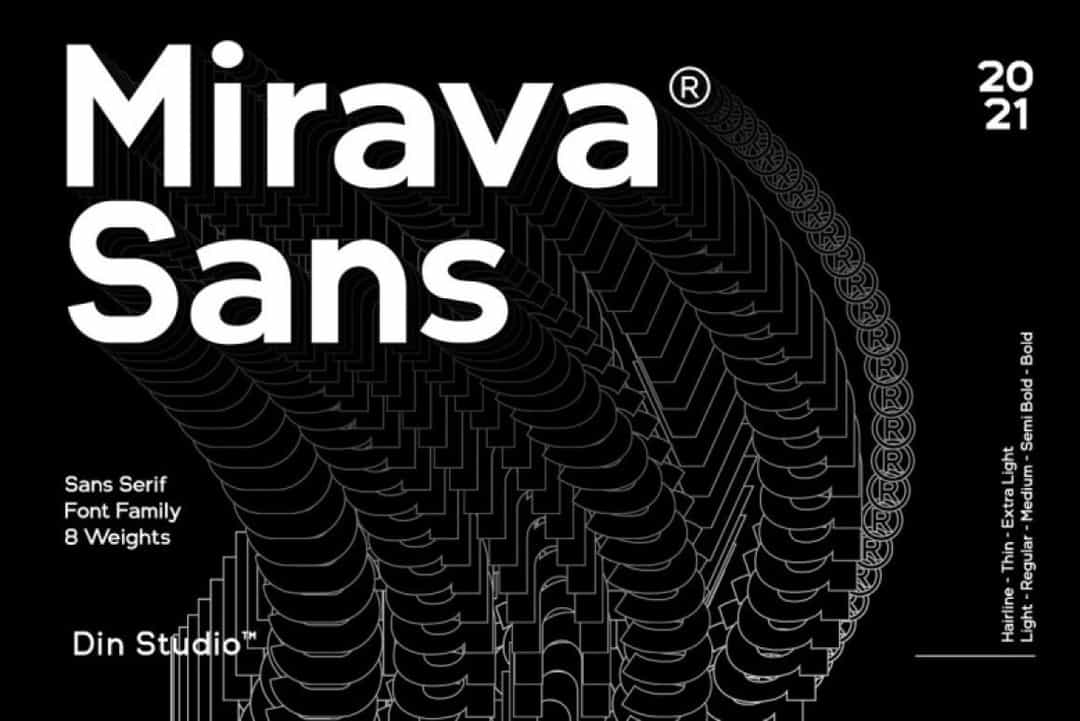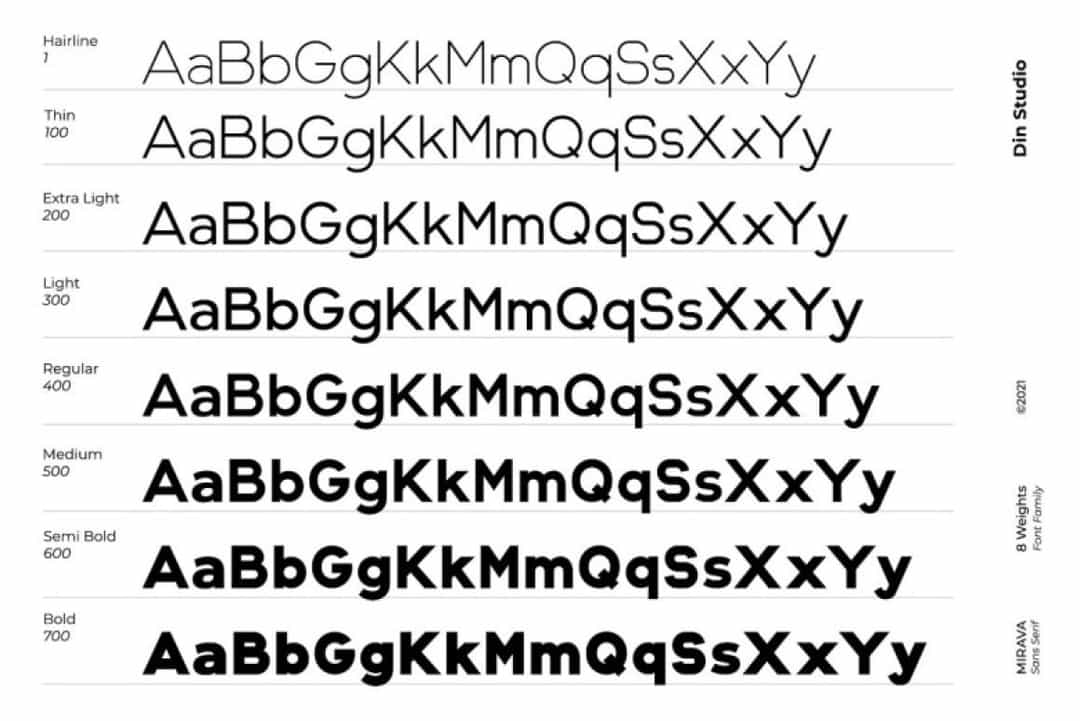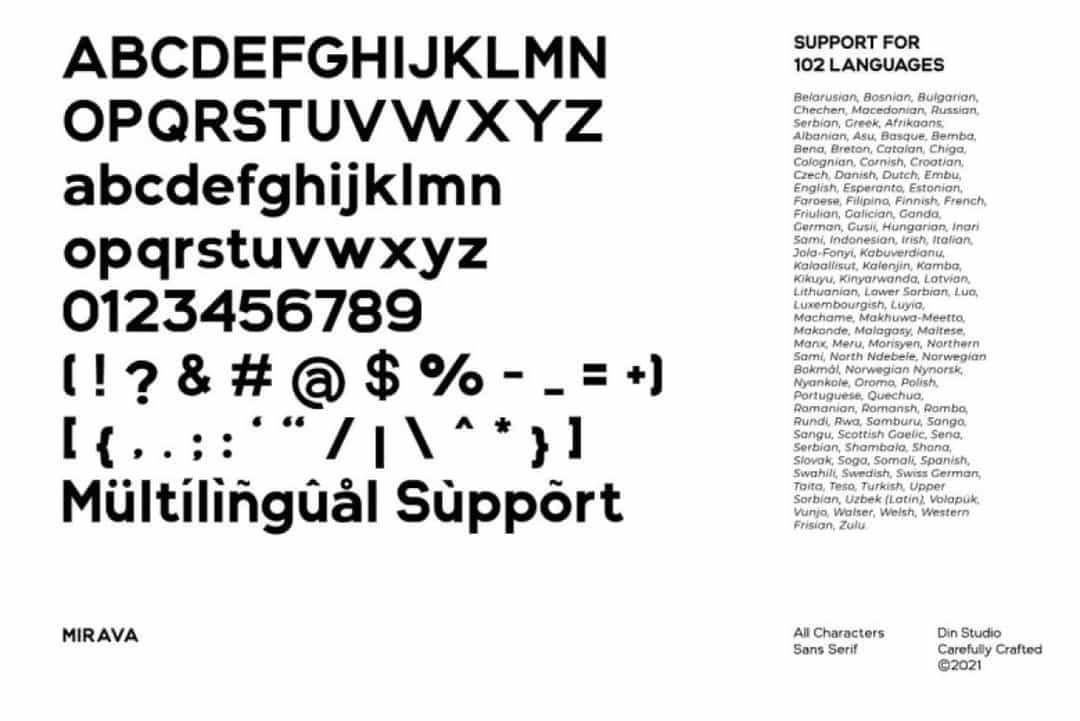
Mirava Sans Serif Font,When it comes to giving our customers options, Mirava San is one that will surely please. With its vast library of elegant fonts, this set will add plenty of options for improving design options with elegant fonts that bring your brand alive with modernity while adding fun and class.